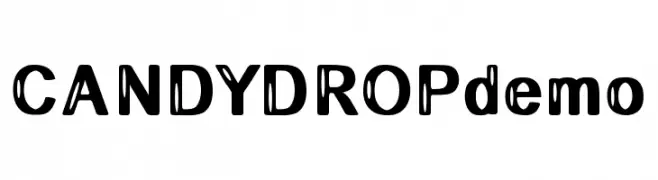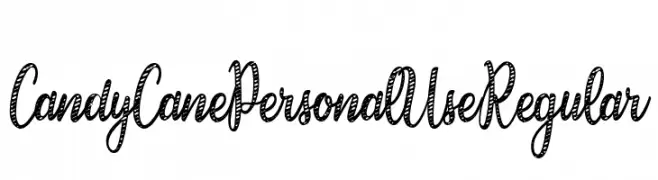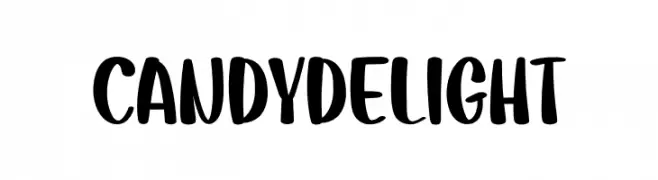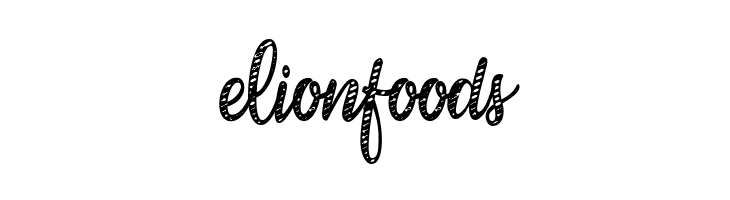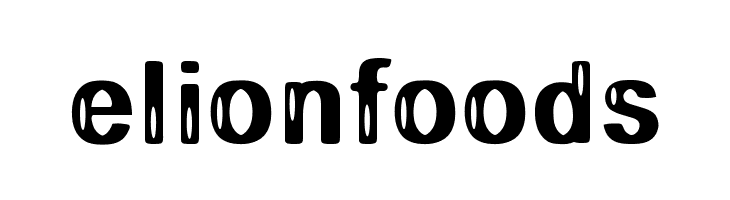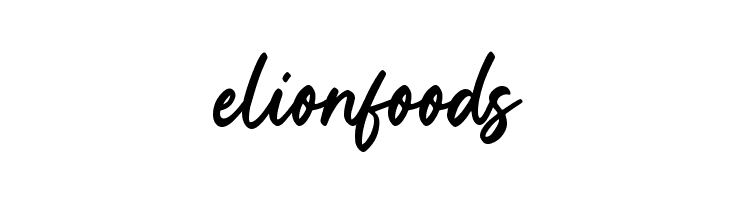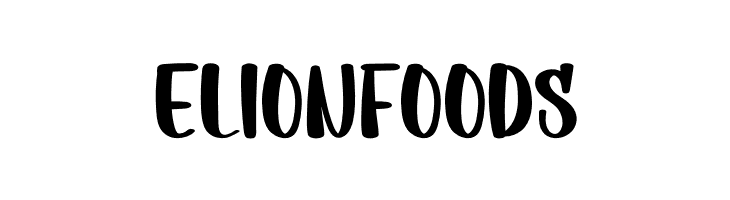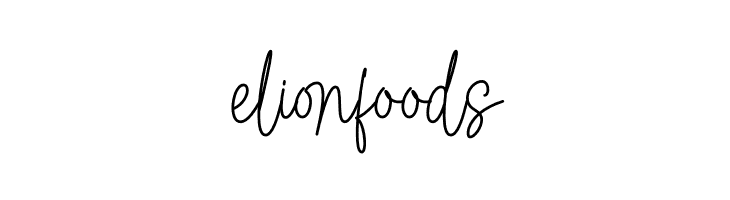
A playful, candy cane-themed cursive font with a decorative striped pattern.
A lively, handwritten script font with a playful and dynamic style.
( Fonts by Wahyu Studio )
A playful, handwritten font with a whimsical and approachable style.
( Fonts by Staircase Studio )
A playful and whimsical cursive font with elegant, flowing characters.
A playful, rounded font with a hand-drawn, whimsical style.
A bold, playful script font with a handwritten style.
( Fonts by PiPi Creative )
A bold, playful handwritten font with rounded, flowing characters.
( Fonts by Perspectype Studio )
A playful, hand-drawn font with candy stripe patterns inside each character.
A playful, bold typeface with rounded and angular elements, featuring creative negative space.